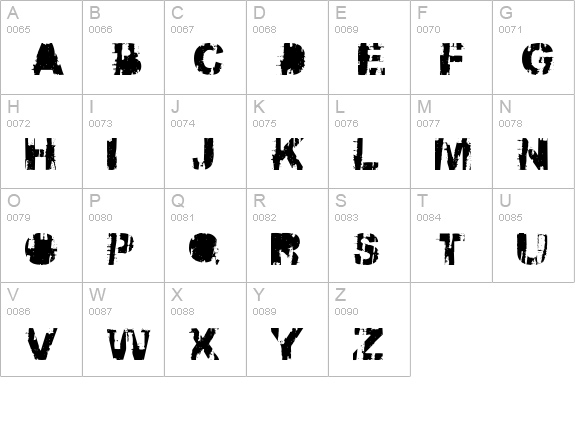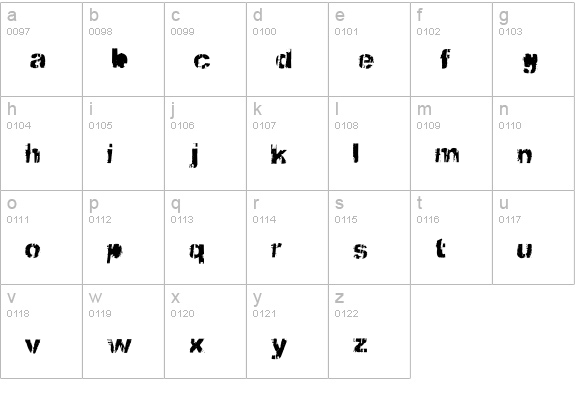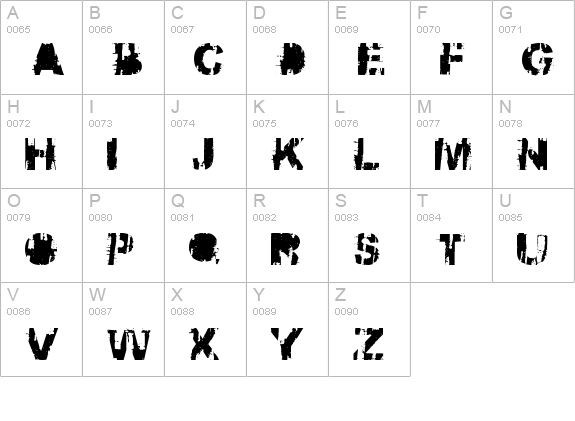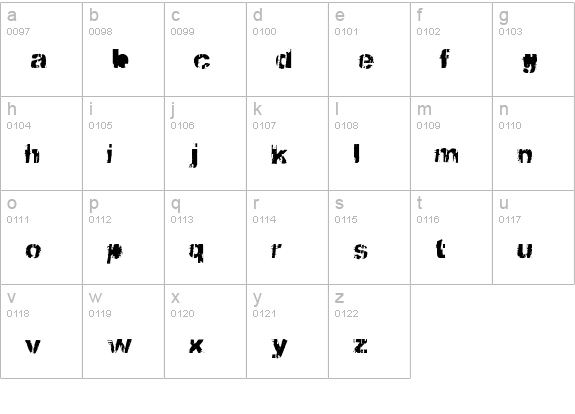
BBQcow moo Font Details
Introducing BBQcow Moo font, a delightful and playful typeface that exudes charm and character. This unique font features quirky cow-inspired glyphs that are sure to bring a smile to anyone's face. Whether you're working on a fun project, creating branding materials, or just looking to add a touch of whimsy to your designs, BBQcow Moo font is the perfect choice. Best of all, BBQcow Moo font is completely free to download at FontsMarket.com. You can easily add this charming font to your collection and start using it in your projects right away. Don't miss out on the opportunity to bring a touch of playful sophistication to your designs with BBQcow Moo font. Download it today and let your creativity run wild!